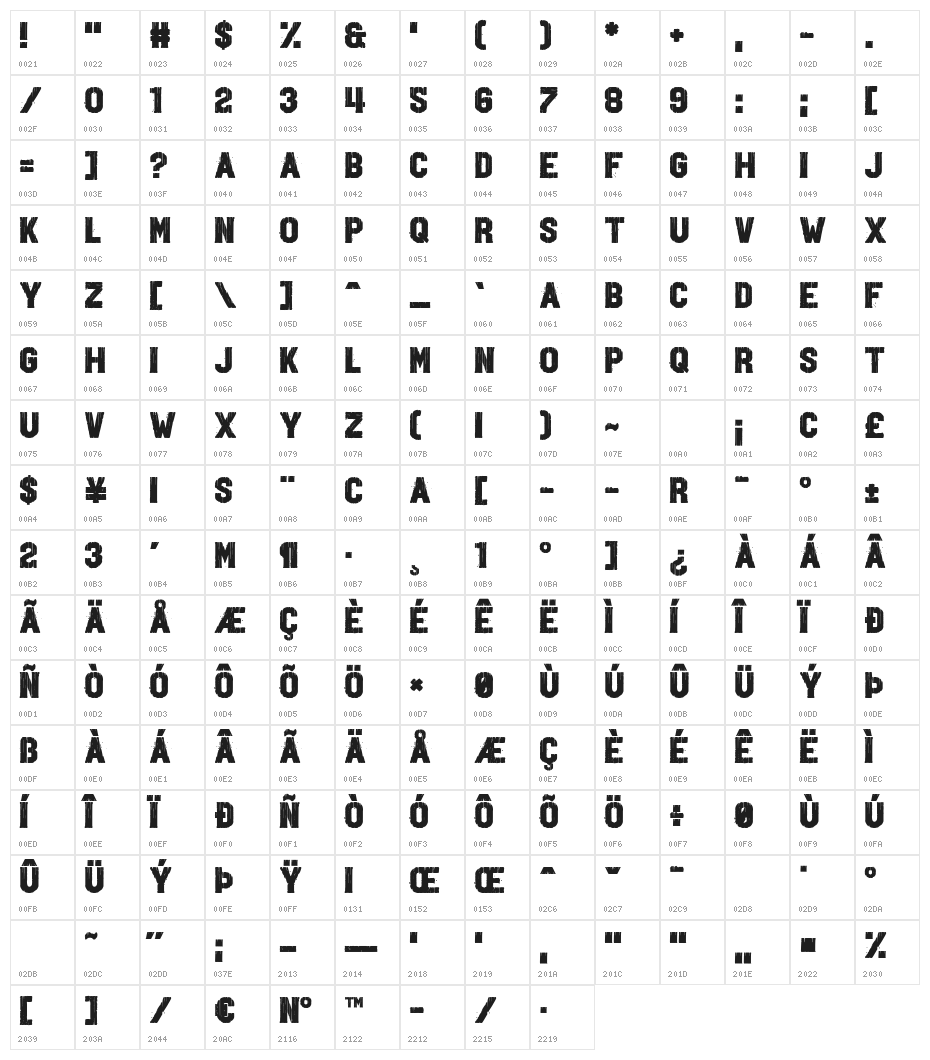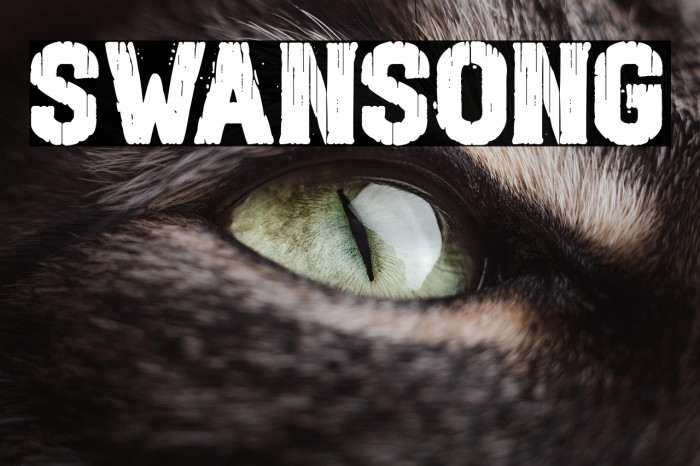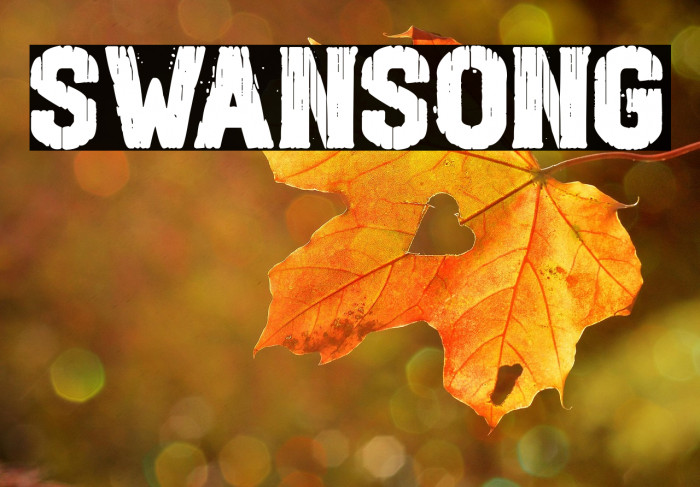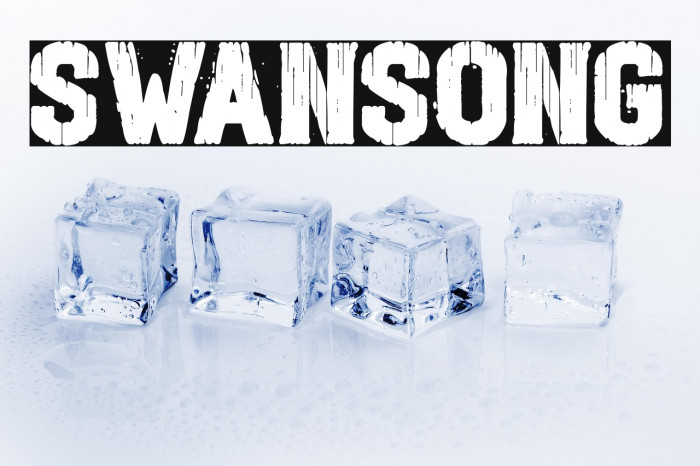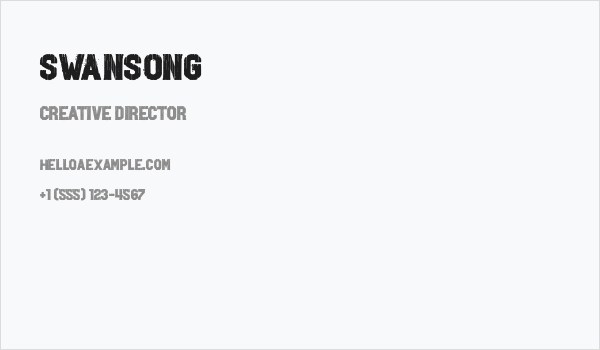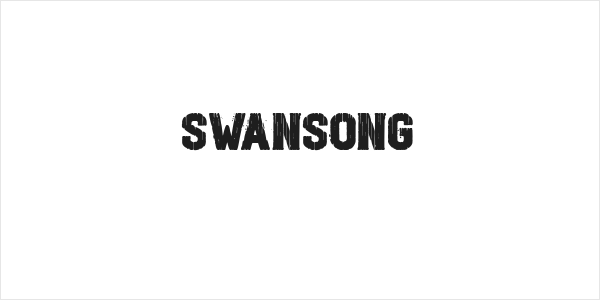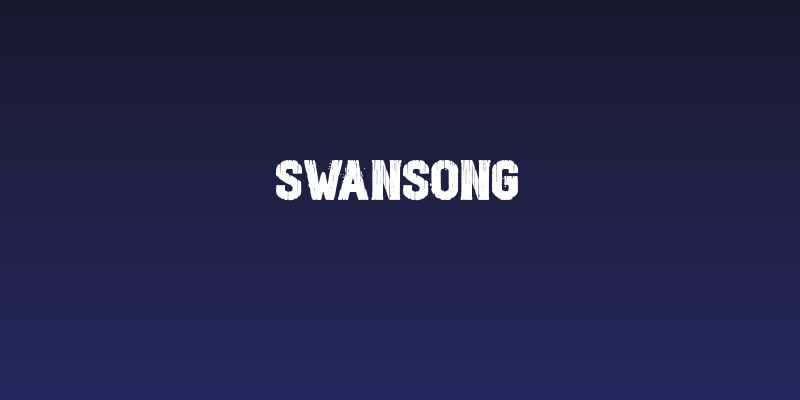
Swansong Font
Swansong Description
This font features a bold, distressed style with a rough, textured appearance that gives it a rugged and worn look. The characters are uniformly bold with a consistent width, creating a strong visual impact. The distressed effect is achieved through irregular edges and a speckled pattern within each letter, adding a sense of depth and character. This style is reminiscent of vintage or industrial design, making it suitable for projects that require a bold statement. The font includes a full set of uppercase letters, numbers, and a variety of special characters, all maintaining the same distressed aesthetic.
| Proposed Projects | Ideal for posters, album covers, branding for edgy or vintage-themed products, and any design needing a strong, impactful typeface. |